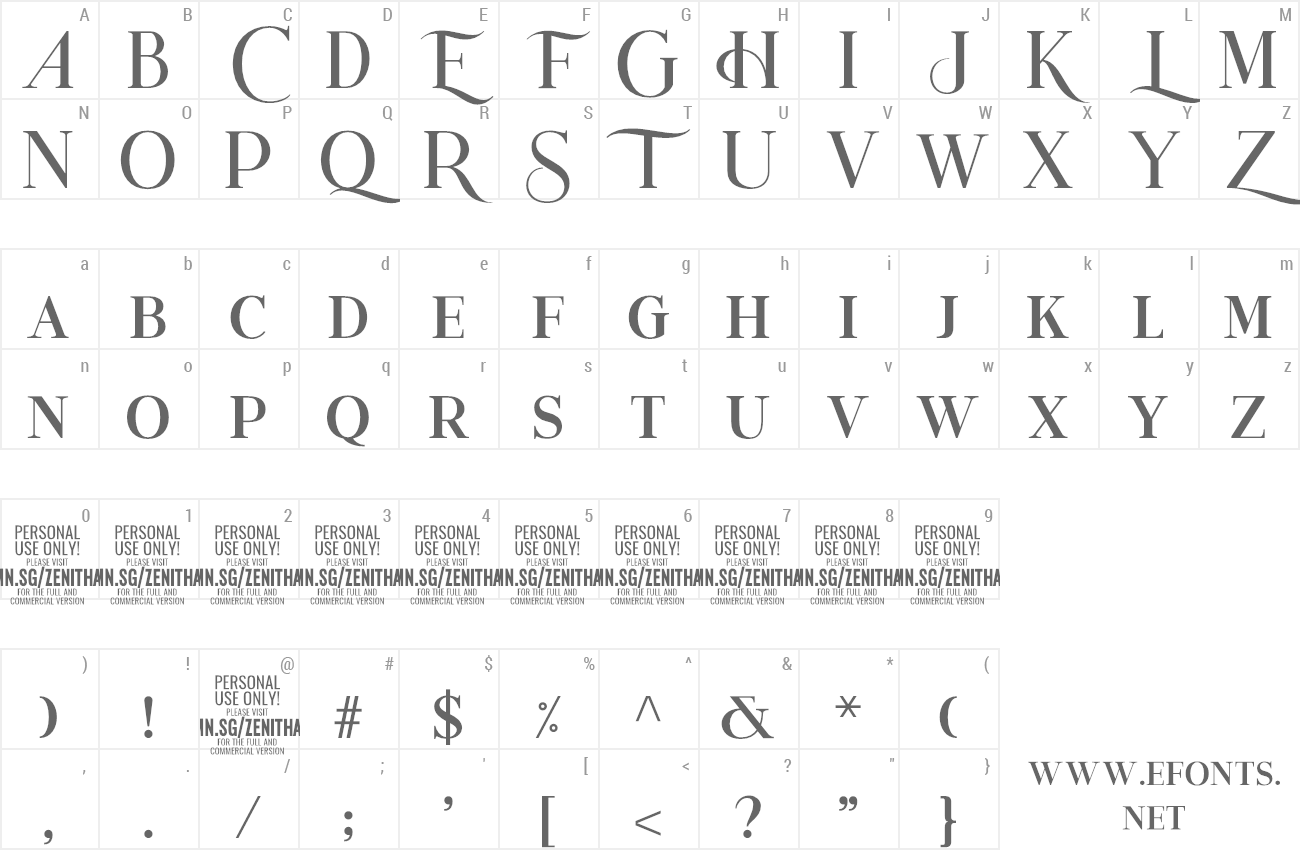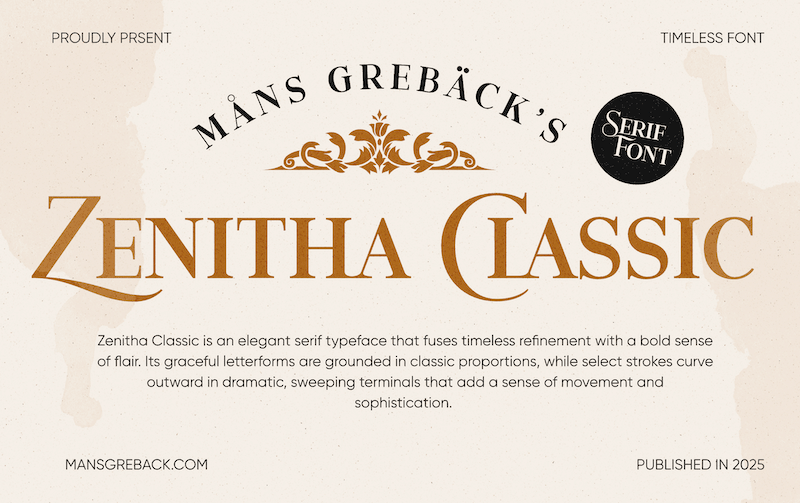
Preview and download Zenitha Classic Font. Created by Måns Grebäck in Basic Serif styles with Free for personal use license.
| Font name: | Zenitha Classic |
NOTE: This font is for PERSONAL USE ONLY! To purchase a commercial license, visit: https://www.mansgreback.com/product/zenitha-classic Zenitha Classic is an elegant serif typeface that fuses timeless refinement with a bold sense of flair. Its graceful letterforms are grounded in classic proportions, while select strokes curve outward in dramatic, sweeping terminals that add a sense of movement and sophistication. For questions, please visit https://mansgreback.com/faq |